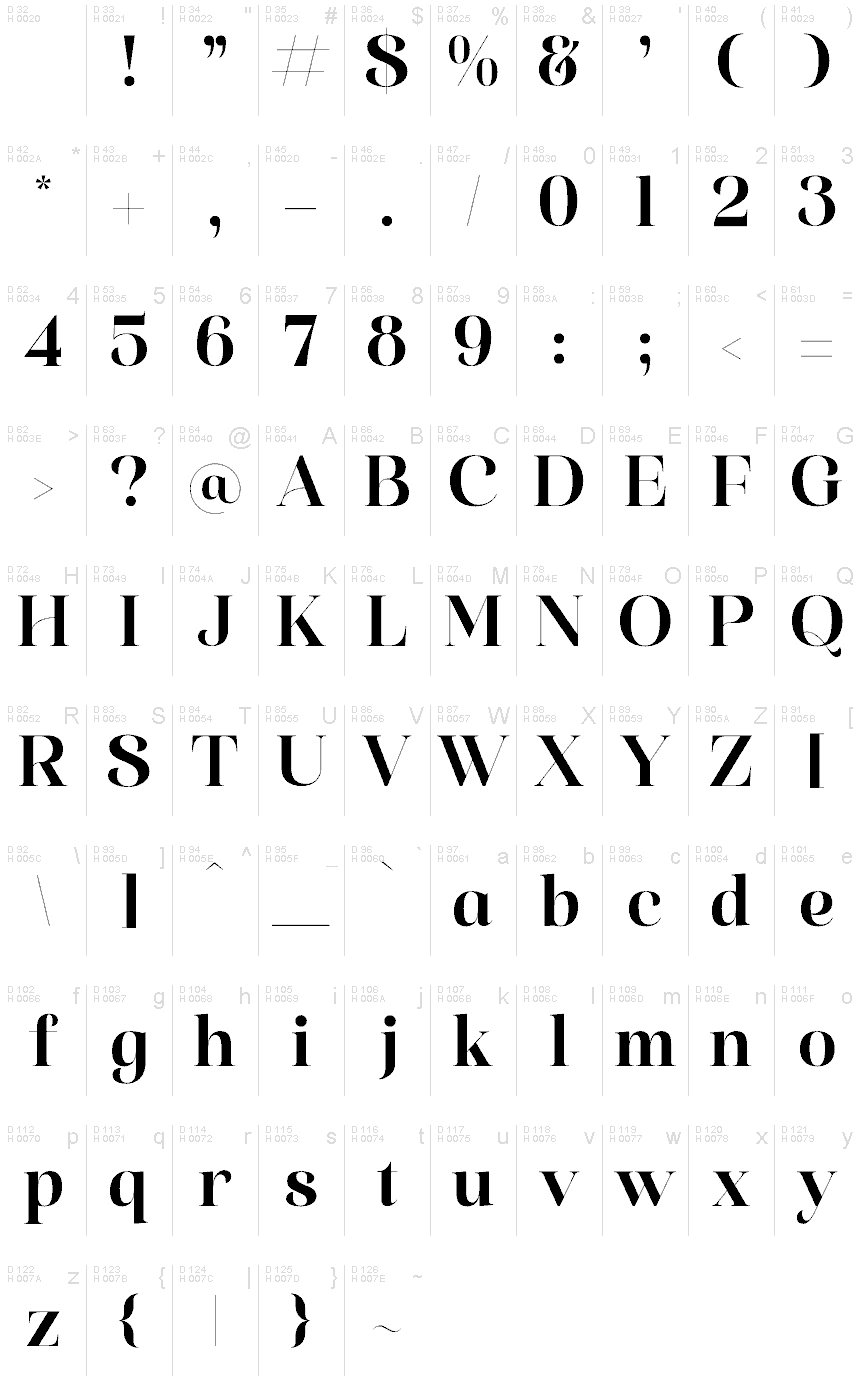
Florilst Realik
Florilst Realik font by Storytype Studio is a sophisticated serif font that combines elegance and classic influence. Its professional ambiance makes it perfect for designs that need a touch of refinement and style.